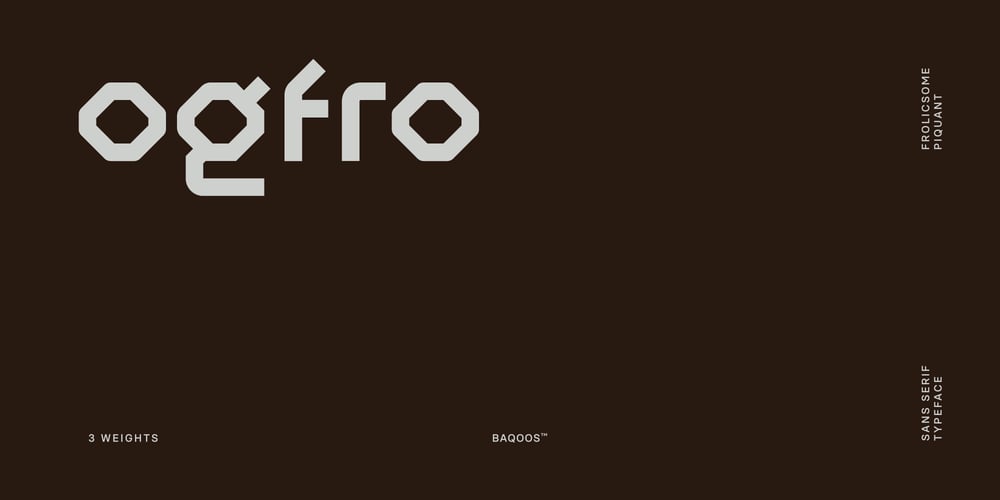
Ogfro Font Family was designed by Andrew Seah and published by Baqoos. Ogfro contains 3 styles and family package options. Agobb is a frolicsome piquant sans apt for headline, editorial, branding, packaging, printed materials and typographic applications. 200+ glyphs with ligatures and fractions provided in opentype .otf and .woff format.